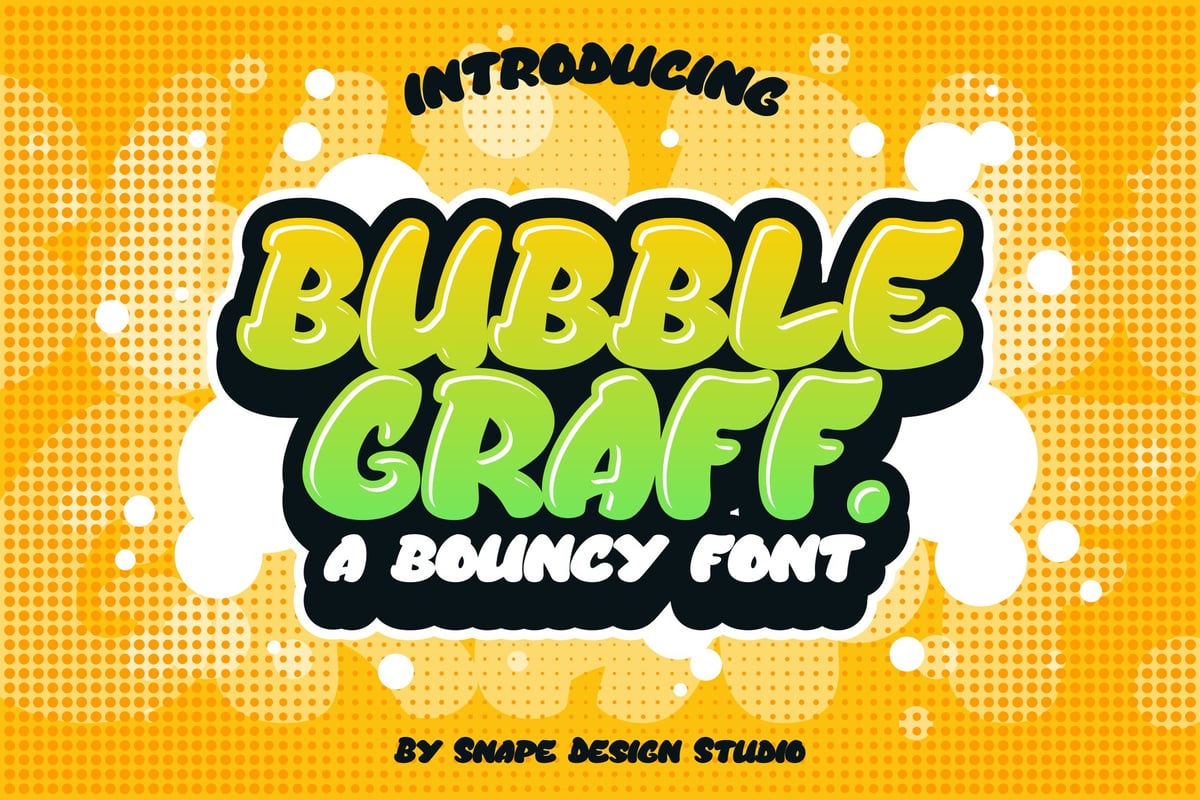
Bubble Graff - Bouncy Font
Create eye-catching designs with this playful, thick-lettered bubble font that screams fun and authenticity. Bubble Graff embodies pure playfulness with its cool, bubbly design that's perfect for children's activities and school projects. This display font truly shines when paired with vibrant, bright colors that make your text pop off the page. Perfect for a wide range of creative projects including: Movie titles and film projects Documentaries and video content Logo design and branding Posters...